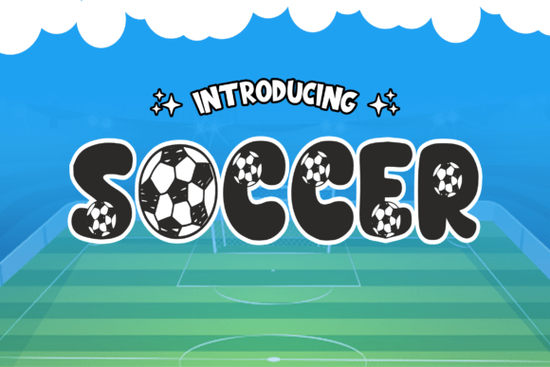
If you're looking for a bold, playful way to add football flair to your designs, the Soccer Font is a great choice. This modern decorative font brings a cartoonish football vibe to every letter each character subtly features a ball icon, making it instantly recognizable and full of energy. It’s perfect for t-shirts, mugs, tote bags, and even animated content or comic titles.
Why this font works for creative projects
The Soccer Font stands out because it combines fun visuals with clean typography. The ball details are integrated into the design without overwhelming the letters, so it remains readable while adding personality. Whether you're creating team merch, fan gifts, or just experimenting with design ideas, this font adds instant theme cohesion.
It’s especially useful if you’re working with sublimation printing. The high-contrast, bold strokes ensure sharp results on fabric and hard surfaces like mugs and phone cases. You can use it in both large headlines and smaller text elements just make sure to test it at different sizes to keep the ball details clear.
Great for these types of projects
- T-shirt designs for sports fans, school teams, or casual wear
- Mug graphics for game-day gifts or café branding
- Tote bag prints that stand out at markets or events
- Comic book or animation titles with a lighthearted tone
- Print-on-demand products where unique fonts boost appeal
Because it’s a decorative font with a clear visual theme, it helps your designs tell a story right away. A single word in Soccer Font can communicate excitement, fandom, or playfulness without needing extra graphics.
How to get the most from this font
When using the Soccer Font, consider pairing it with simpler, neutral typefaces for balance. For example, use a clean sans-serif for body text or descriptions, letting the Soccer Font shine as a headline or accent. This keeps your layout professional while still fun.
Try varying the color scheme to match your brand or event. Bright reds, blues, and whites work well for sports themes, but don’t be afraid to experiment with pastels or metallics for a fresh twist. Also, test how the font looks when scaled down some of the ball details might blur if too small.